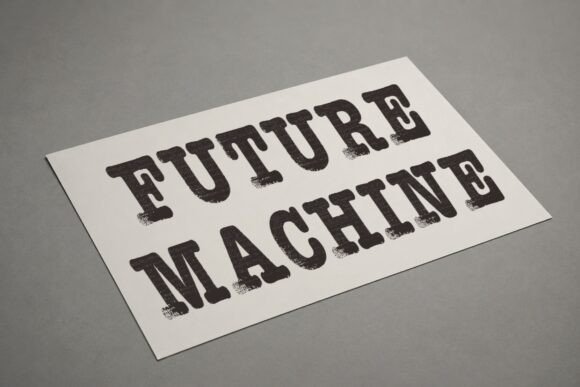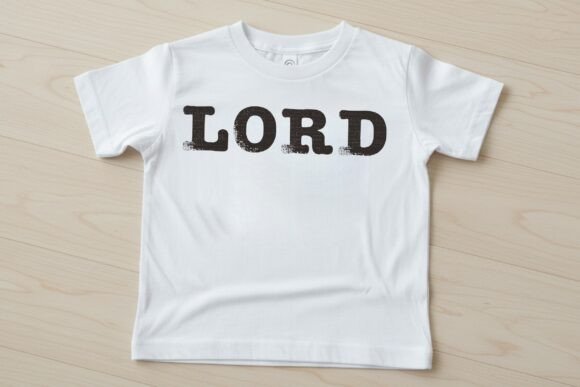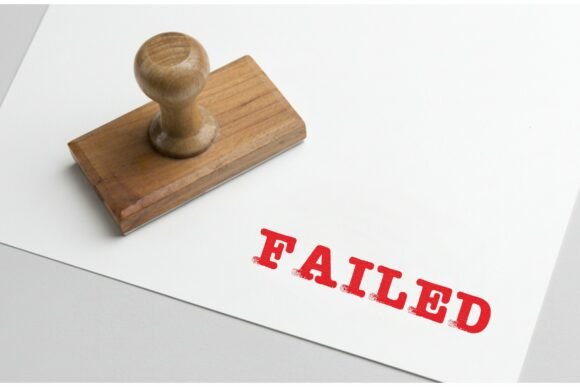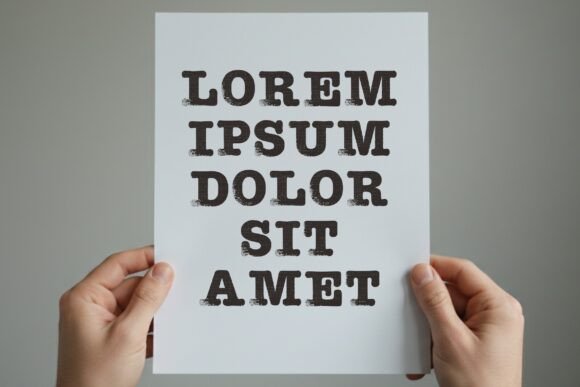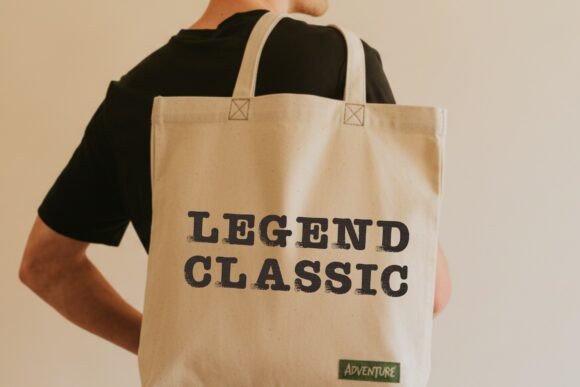
Introducing Future Machine: The Ultimate Slab Serif Display Font
In the world of typography, fonts play a crucial role in conveying the tone and personality of a brand or design. For designers and crafters looking for a font that exudes a sense of nostalgia and modernity, Future Machine is the perfect choice. This powerful slab serif display font seamlessly blends vintage typewriter charm with bold modern character, making it an ideal choice for a wide range of creative projects.
The Design and Features of Future Machine
Future Machine is designed with strong geometric letterforms and a slightly distressed texture, giving it an authentic retro printing feel. The font’s bold appearance works beautifully in both digital and print applications, making it highly versatile. The slab serif design ensures that the font remains highly readable, even at larger sizes, while the distressed texture adds a touch of ruggedness and character.
Perfect for a Wide Range of Creative Projects
Future Machine is perfect for creating eye-catching headlines, classic branding, editorial layouts, posters, merchandise, logos, café menus, labels, and packaging. The font’s nostalgic yet stylish atmosphere makes it an excellent choice for designers and crafters looking to add a touch of timelessness to their work. Whether you’re designing western themes, vintage posters, old-school branding, or retro-inspired apparel, Future Machine gives your typography a confident and timeless personality.
Key Benefits of Using Future Machine
- Unique and Authentic Design: Future Machine’s blend of vintage typewriter charm and modern character makes it stand out from other fonts.
- Highly Readable: The font’s slab serif design and clear letterforms ensure that it remains highly readable, even at larger sizes.
- Versatile: Future Machine works beautifully in both digital and print applications, making it perfect for a wide range of creative projects.
Inspiration and Ideas for Using Future Machine
Future Machine is an incredibly versatile font that can be used in a wide range of creative projects. Here are a few ideas to get you started:
- Vintage Posters: Use Future Machine to create eye-catching posters with a nostalgic feel.
- Classic Branding: Add a touch of timelessness to your brand with Future Machine’s bold and confident typography.
- Retro-Inspired Apparel: Use Future Machine to create unique and stylish typography for your retro-inspired apparel designs.
- Café Menus and Labels: Add a touch of nostalgia to your café menus and labels with Future Machine’s authentic retro printing feel.
In conclusion, Future Machine is a powerful slab serif display font that is perfect for designers and crafters looking for a unique and authentic way to add a touch of nostalgia and modernity to their work. With its strong geometric letterforms, slightly distressed texture, and highly readable design, Future Machine is an excellent choice for a wide range of creative projects. Whether you’re designing vintage posters, classic branding, or retro-inspired apparel, Future Machine gives your typography a timeless and confident personality.
Get Ready to Elevate Your Typography